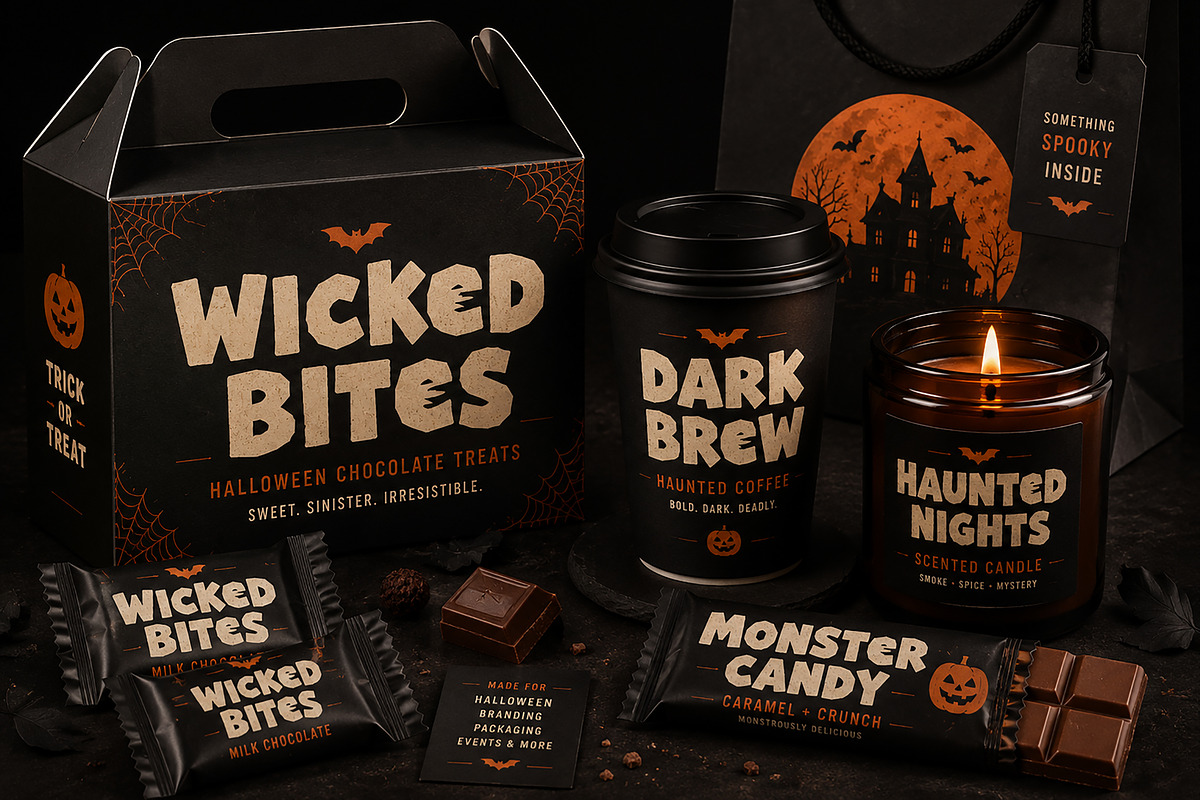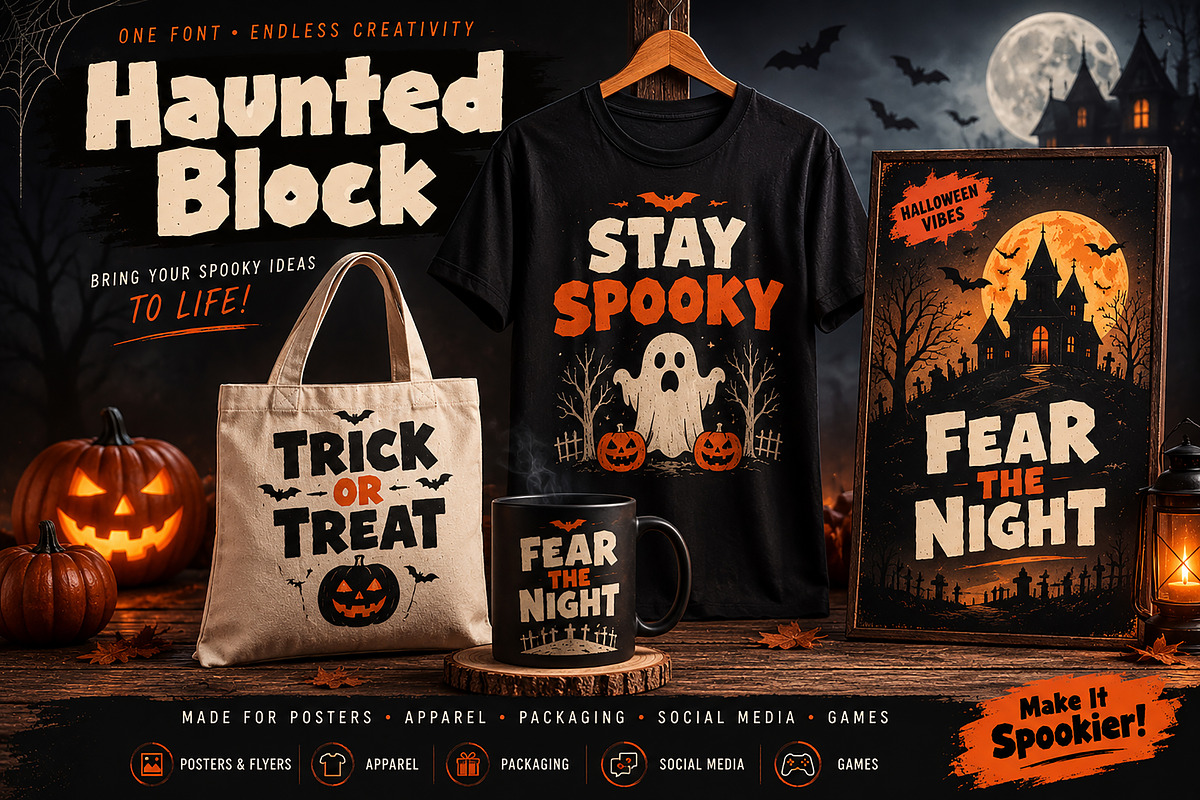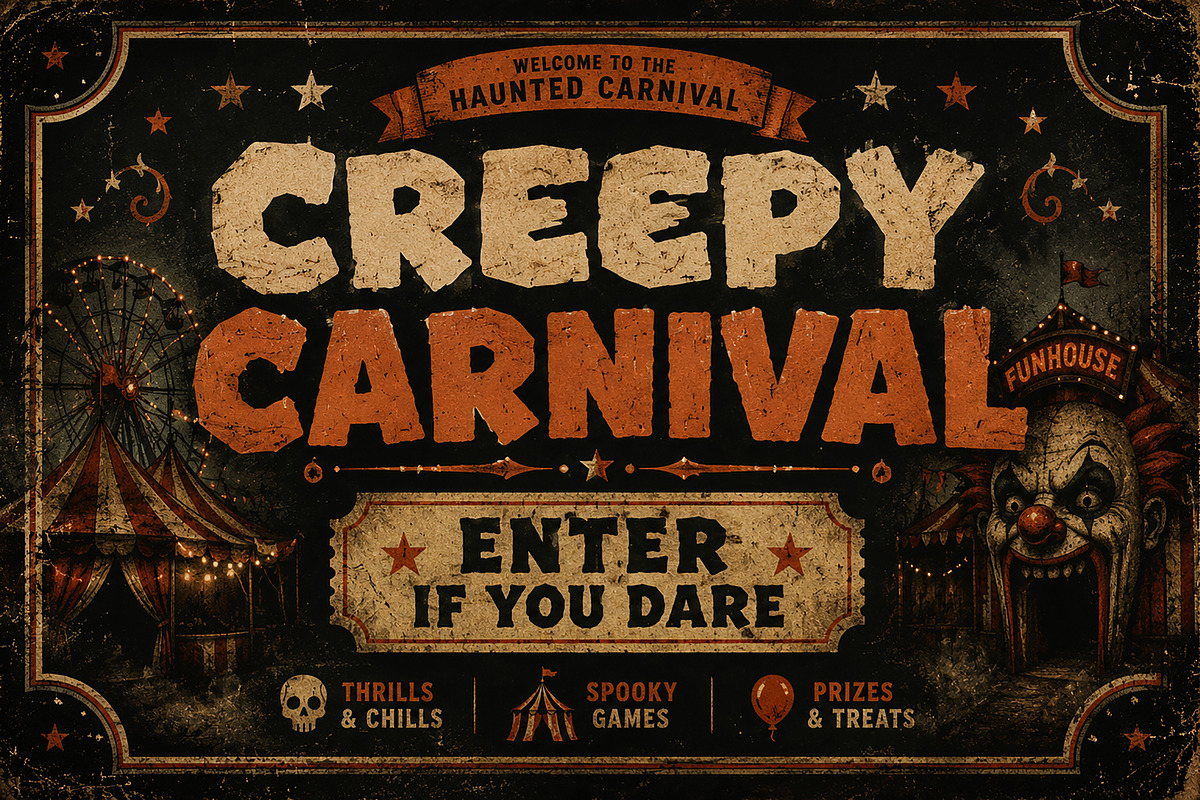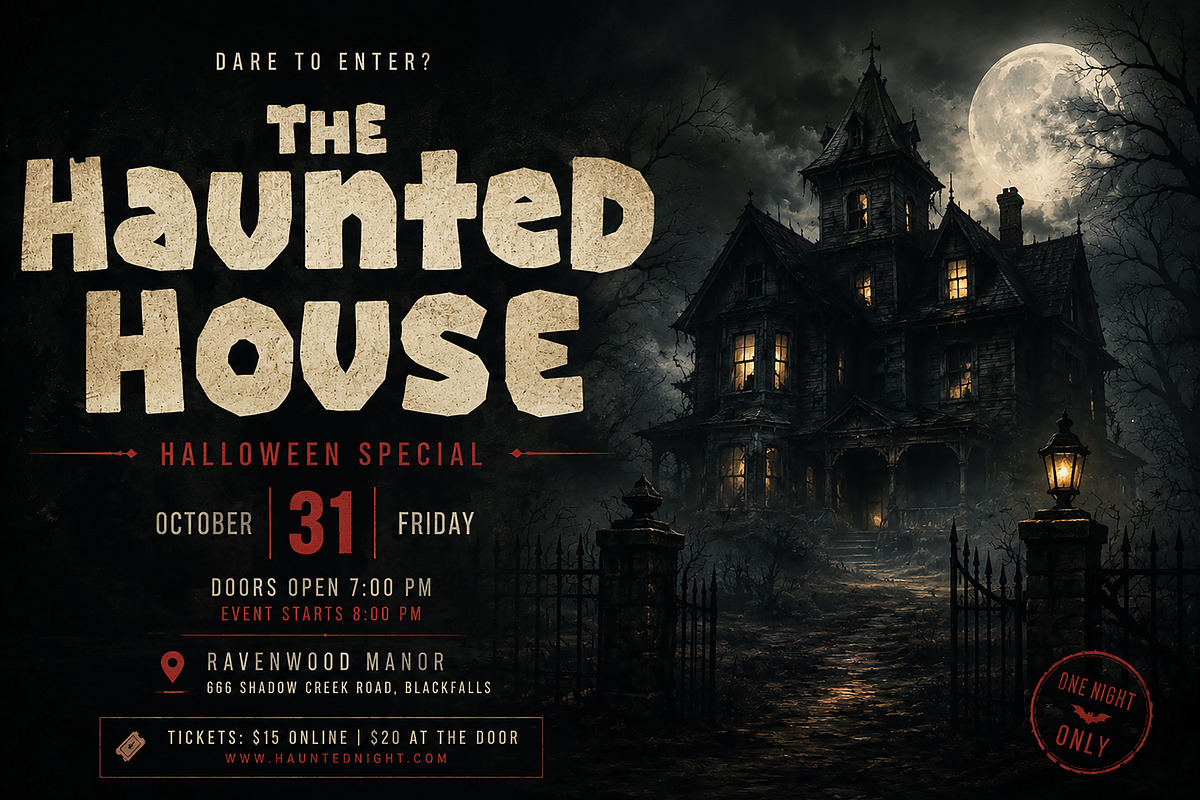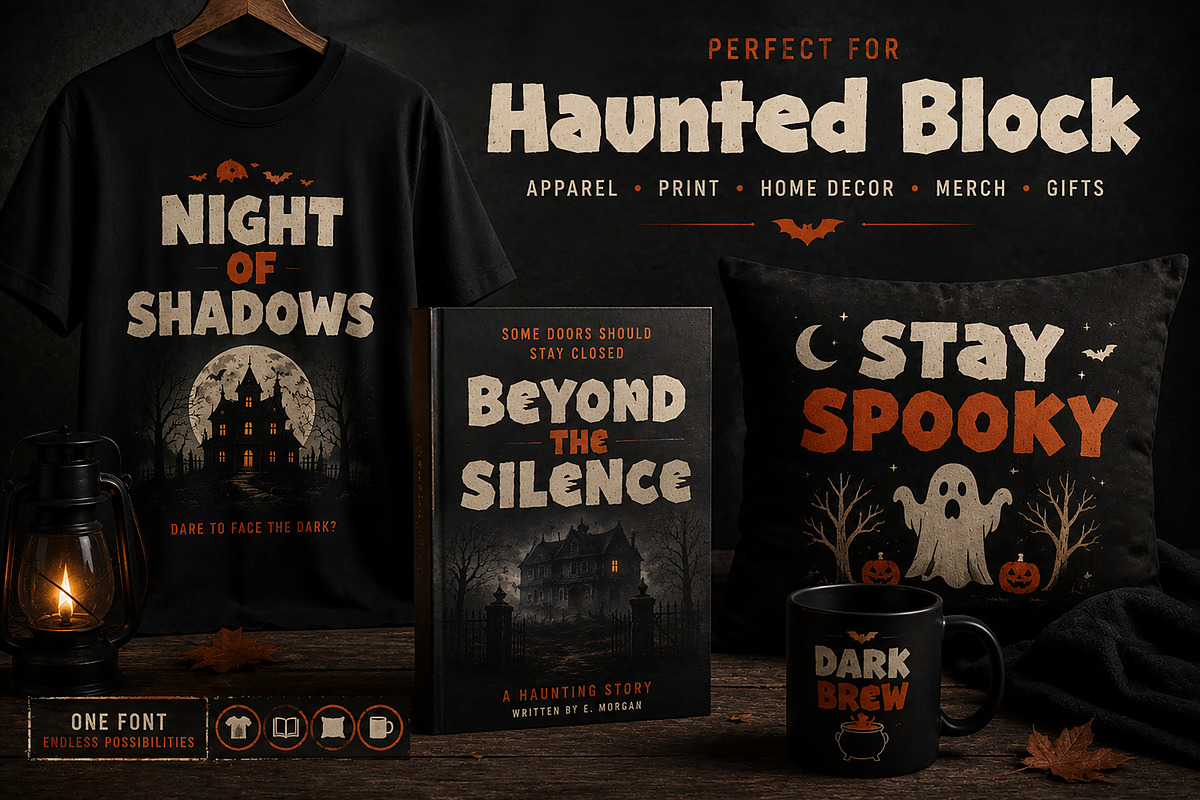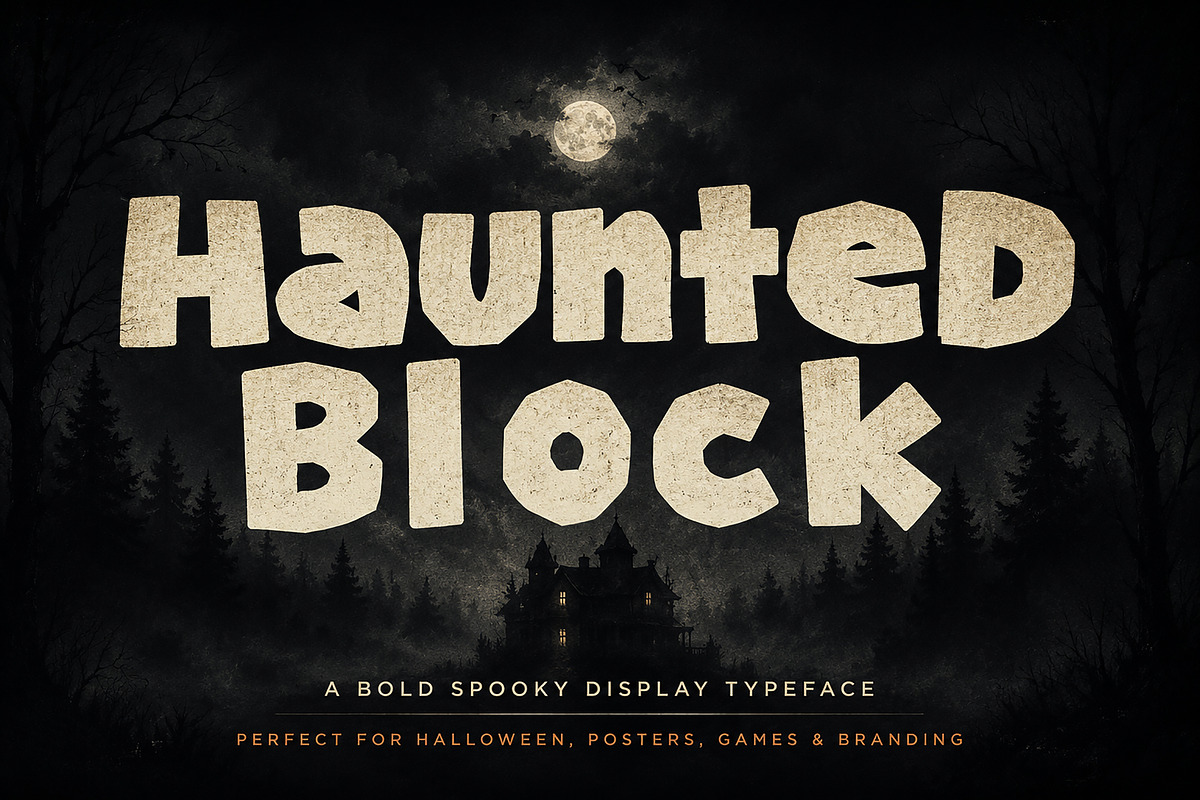
Haunted Block
Haunted Block – Spooky Halloween Display Font
Bring bold, playful, and spooky personality to your creative projects with Haunted Block, a handcrafted display font featuring chunky letterforms, irregular shapes, and a distinctive haunted character.
Designed to instantly grab attention, Haunted Block combines a fun block-style appearance with a creepy Halloween-inspired aesthetic. Its bold and unconventional forms make it especially effective for large headlines, titles, posters, merchandise, packaging, and entertainment-focused designs.
Whether you are creating a haunted-house poster, Halloween party invitation, horror game title, spooky book cover, candy packaging, T-shirt design, or social media campaign, Haunted Block gives your typography a memorable handcrafted look.
Halloween Posters & Flyers
Horror & Spooky Designs
Haunted House Events
Movie & Book Titles
Game Titles & Graphics
T-Shirt & Apparel Designs
Candy & Product Packaging
Logos & Branding
Stickers & Merchandise
Party Invitations
YouTube Thumbnails
Kids' Spooky Projects
Cricut & Craft Projects
Print & Digital Designs
Haunted Block is created for designers who need strong display typography with a playful spooky personality. The chunky construction helps headlines stand out, while the irregular letterforms give designs a distinctive handmade character.
Style: Spooky / Halloween / Block / Display
Best Use: Headlines, Titles & Display Typography
Make your next project a little more mysterious, playful, and unforgettable with Haunted Block.